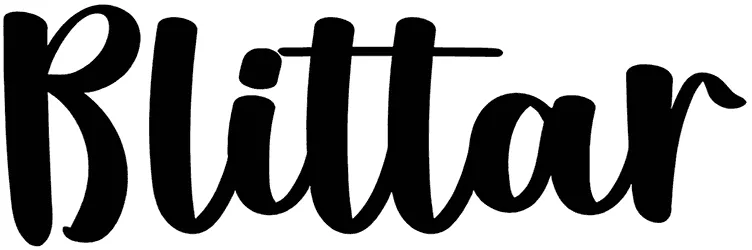
Blittar Font
If you’re going for a touch of class, the lovely Blittar script calligraphy font is your best bet. This font is perfect for logos, greeting cards, invitations, and any other design that needs an elegant touch because of its smooth lines and curves.